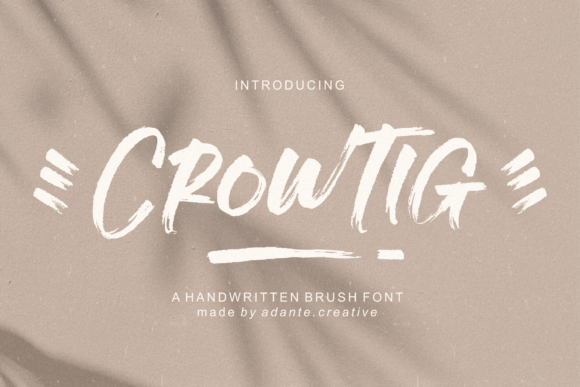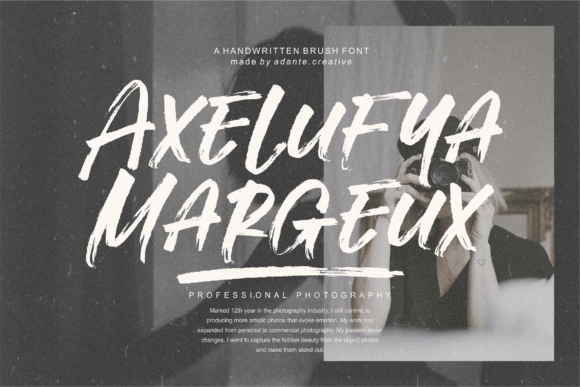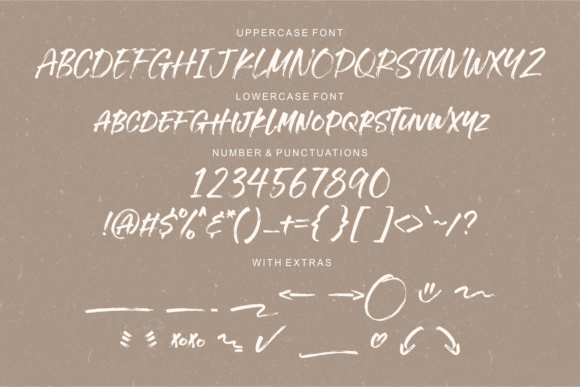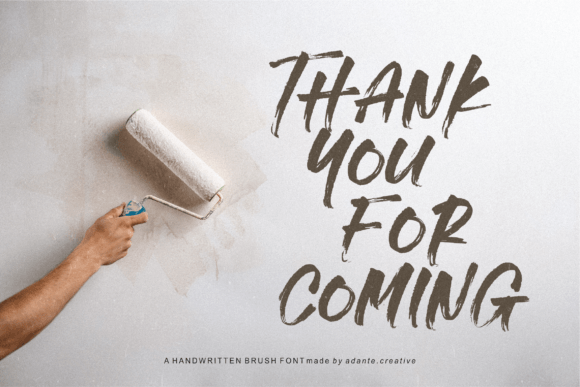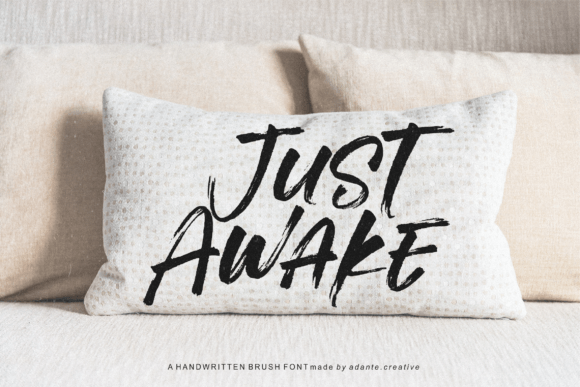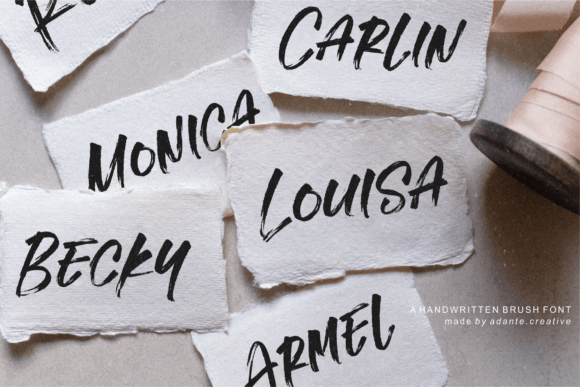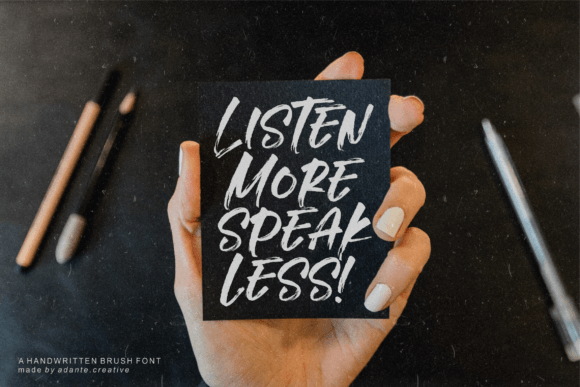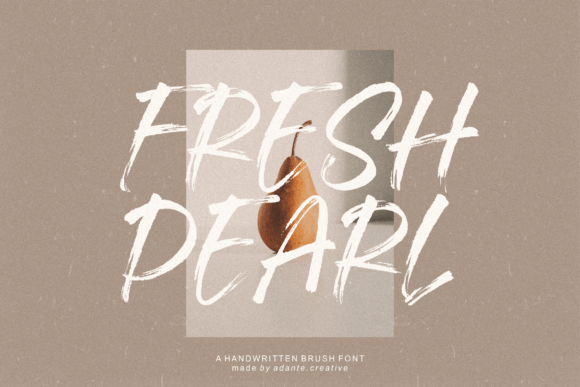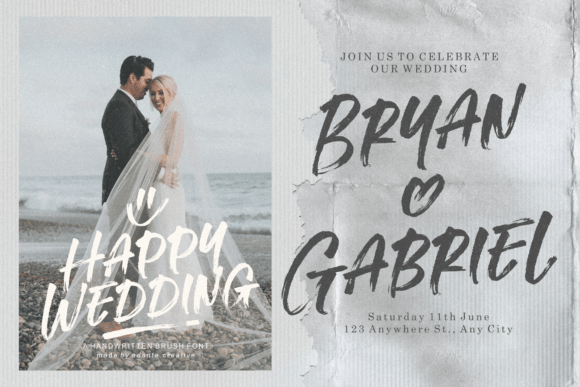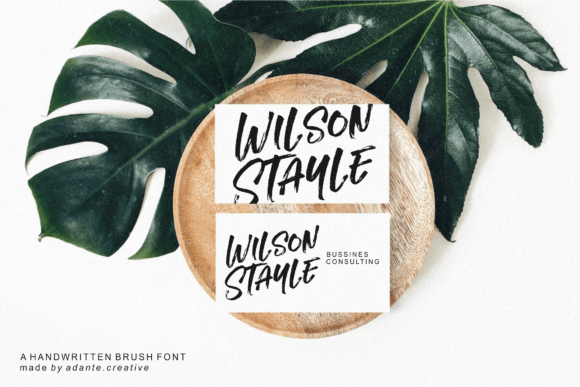
Crowtig Font
About Crowtig Font
“Crowtig” is a handwritten brush font that offers a unique and expressive style. With its casual and brushstroke-inspired design, it is well-suited for a variety of creative projects and design applications.
The versatility of “Crowtig” allows it to be used in various contexts. Whether you’re working on product packaging, branding projects, magazine layouts, social media posts, wedding invitations, or any design where you want to convey a sense of casual authenticity, this font can be a valuable addition to your toolkit.
One of the notable characteristics of “Crowtig” is its ability to add a touch of spontaneity and handcrafted charm to your typography. Its brushstroke-like strokes give your text an organic and dynamic appearance, making it a great choice for designs that aim to feel personal and approachable.
“Crowtig” is designed to allow you to express words creatively and authentically above different backgrounds. Its handwritten brush style brings a sense of character and individuality to your designs, making it a versatile and engaging font choice.
In summary, “Crowtig” is a handwritten brush font that adds a unique and expressive touch to your design projects. Its adaptability makes it suitable for a wide range of creative applications, from branding to social media and beyond. When you choose “Crowtig,” you’re selecting a font that injects a sense of spontaneity and handcrafted charm into your work, helping it connect with audiences on a personal level.